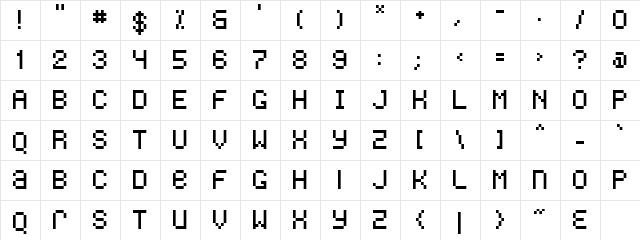
Freon Regular
Design Context for Freon Typeface
Freon takes a measured approach to typography — its balanced proportions and neutral character make it a reliable workhorse for both digital and print work.